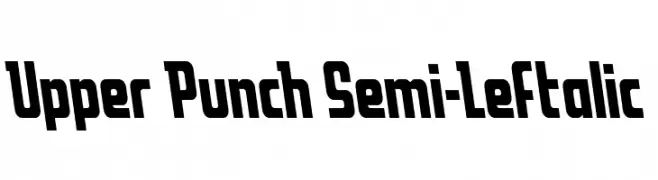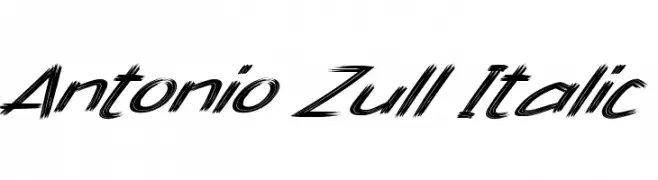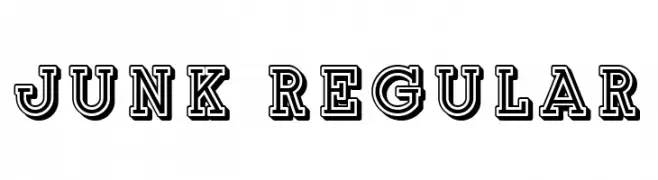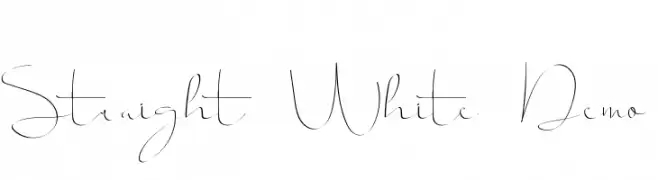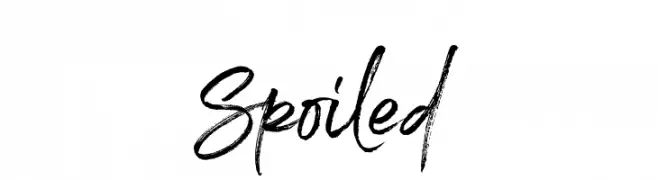
A playful, hand-drawn font with bold, rounded strokes and an informal style.
A series of hand gesture symbols representing letters and numbers, styled for clarity and recognition.
A bold, semi-italic font with a dynamic and impactful style.
A bold, brush-style italic font with dynamic strokes and artistic flair.
A geometric, angular font with a hollow outline and futuristic style.
A futuristic, geometric font with bold, rounded letterforms and circular cutouts.
A bold, decorative font with a double border and three-dimensional effect.
An elegant, flowing script font with delicate, interconnected strokes.
A bold, brushstroke font with an expressive, hand-drawn style.
A modern, light, and italic sans-serif font with a sleek design.